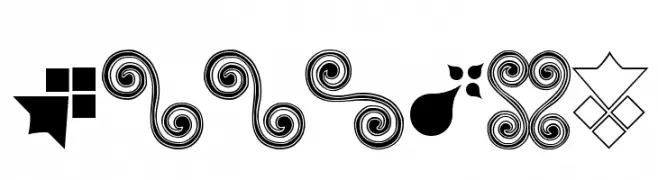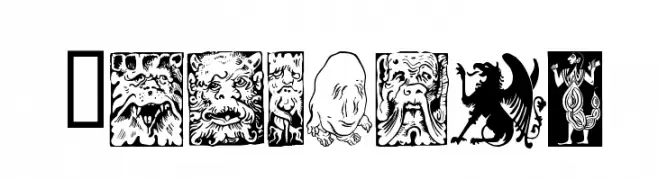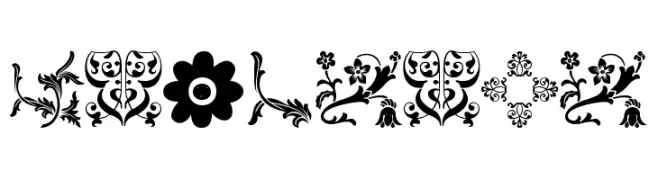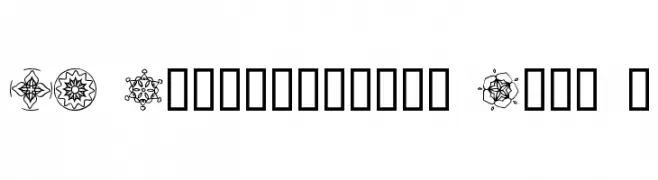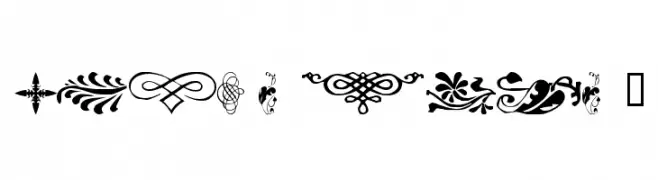
( Fonts by Eyecue Design - Chris Brown )
A playful collection of crown-themed decorative symbols.
( Fonts by David Rakowski )
A diverse collection of bold, decorative pictograms and dingbats.
( Fonts by Lauren Thompson - www.nymfont.com )
A collection of decorative and ornate symbols with vintage and edgy themes.
( Fonts by Spork Thug Typography - Josh Wilhelm - www.lifewithouttaffy.com/taffy/blog )
A decorative font composed entirely of assorted star and burst shapes.
( Fonts by www.houseoflime.com )
Highly decorative, illustrated zodiac-themed display set.
A decorative font featuring ornate astrological symbols within framed squares.
( Fonts by Omega Font Labs )
A decorative dingbat set featuring traditional Asian motifs and symbols.
Ornate woodcut illustrations with a vintage, handcrafted feel.
( Fonts by Klaus Johansen - www.listemageren.dK )
An Art Nouveau-inspired decorative font with intricate, ornamental designs.
( Fonts by www.houseoflime.com )
Intricate hand-drawn floral illustrations in a decorative style.
Ornamental, tile-inspired decorative display set with floral and geometric motifs.
( Fonts by www.houseoflime.com )
Ornate dingbat font with angel and fairy illustrations.
( Fonts by Cumberland Fontworks - http://www222.pair.com/sjohn/fonts.htm - S. John Ross )
Hand-drawn mountain and hill illustrations.
( Fonts by www.iginomarini.com )
Intricate floral and decorative motifs with a vintage, classical style.
( Fonts by www.iginomarini.com )
Intricate floral and ornamental patterns with a vintage charm.
( Fonts by Klaus Johansen - www.listemageren.dK )
Decorative squares with intricate patterns, not a valid font.
( Fonts by Klaus Johansen - www.listemageren.dK )
Ornate, vintage illustrations of classical figures and scenes.